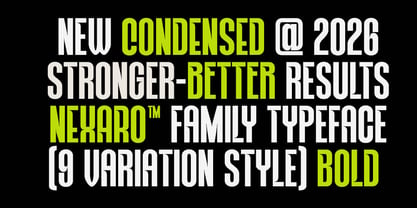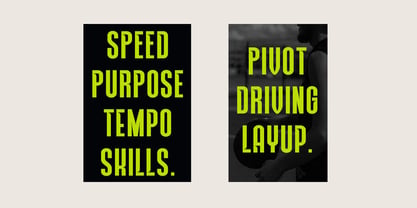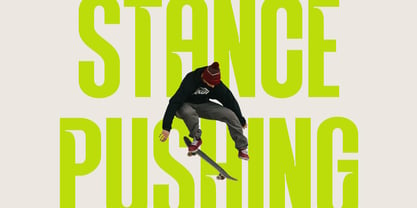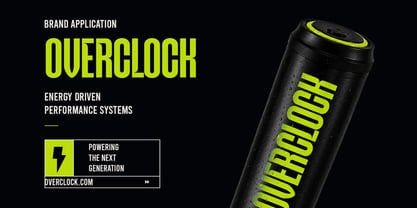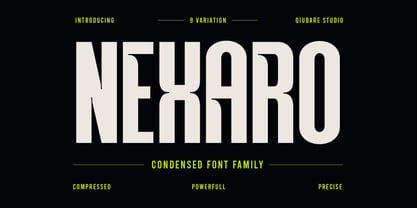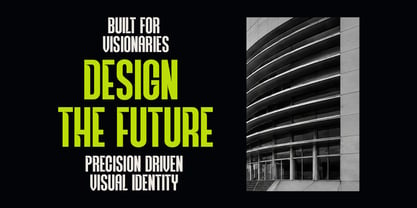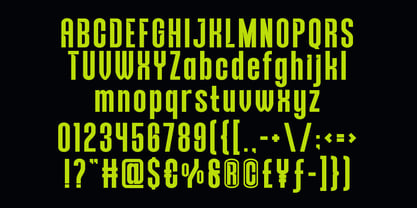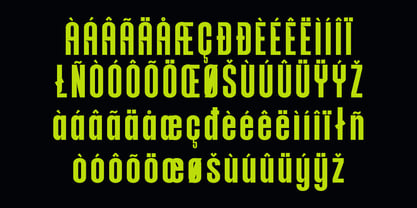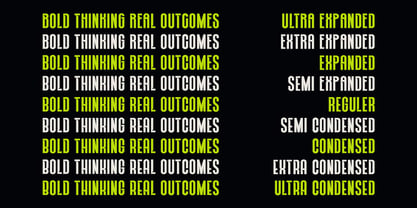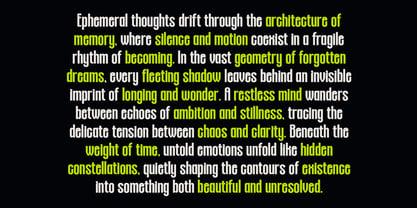
Nexaro
by Qiubare Studio
The Nexaro Font Family was designed by Michael Everson and published by Qiubare Studio. Nexaro contains 9 styles and family package options.
Nexaro is a modern condensed display font family engineered for designers who demand impact, precision, and versatility. Crafted with a bold geometric structure and sharp vertical rhythm, Nexora delivers a powerful visual voice across branding, posters, editorial layouts, sports graphics, fashion campaigns, UI interfaces, packaging, and futuristic visual systems.
Built with a strong condensed personality while maintaining exceptional readability, Nexaro features 9 width variations, ranging from Ultra Expanded to Ultra Condensed, allowing you to create expressive typography systems with maximum flexibility.
Whether you're designing a streetwear brand, tech startup, sports identity, editorial headline, cinematic poster, premium packaging, or modern UI showcase, Nexaro gives your work a bold, contemporary edge.
Its clean proportions, high-impact presence, and multilingual support make Nexaro ideal for designers seeking a typeface that feels modern, confident, premium, and versatile.
✨ Font Features:
* 9 Width Variations
* Ultra Expanded → Ultra Condensed
* Uppercase & Lowercase
* Numerals & Punctuation
* Multilingual Support
* Symbols Included
* Clean Geometric Structure
* High Contrast Display Style
* Modern & Futuristic Character
Nexaro is designed to help brands speak louder, stronger, and more confidently. Bold structure. Powerful presence. Maximum flexibility.